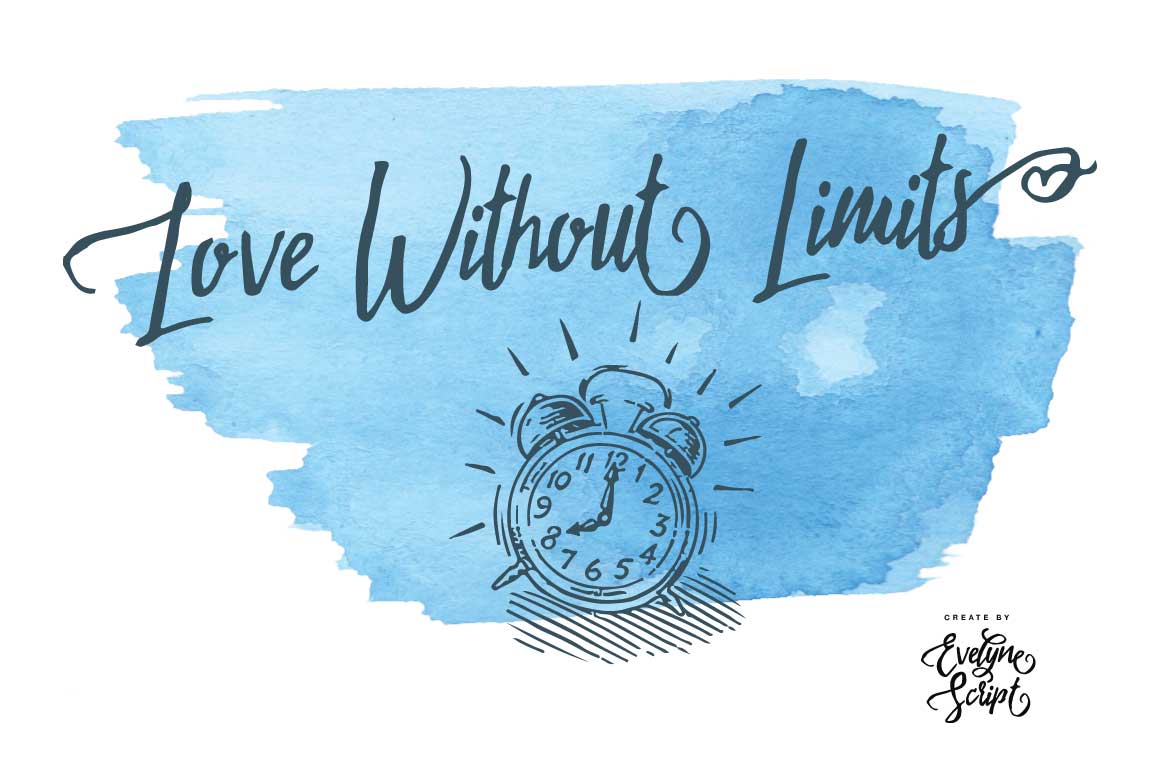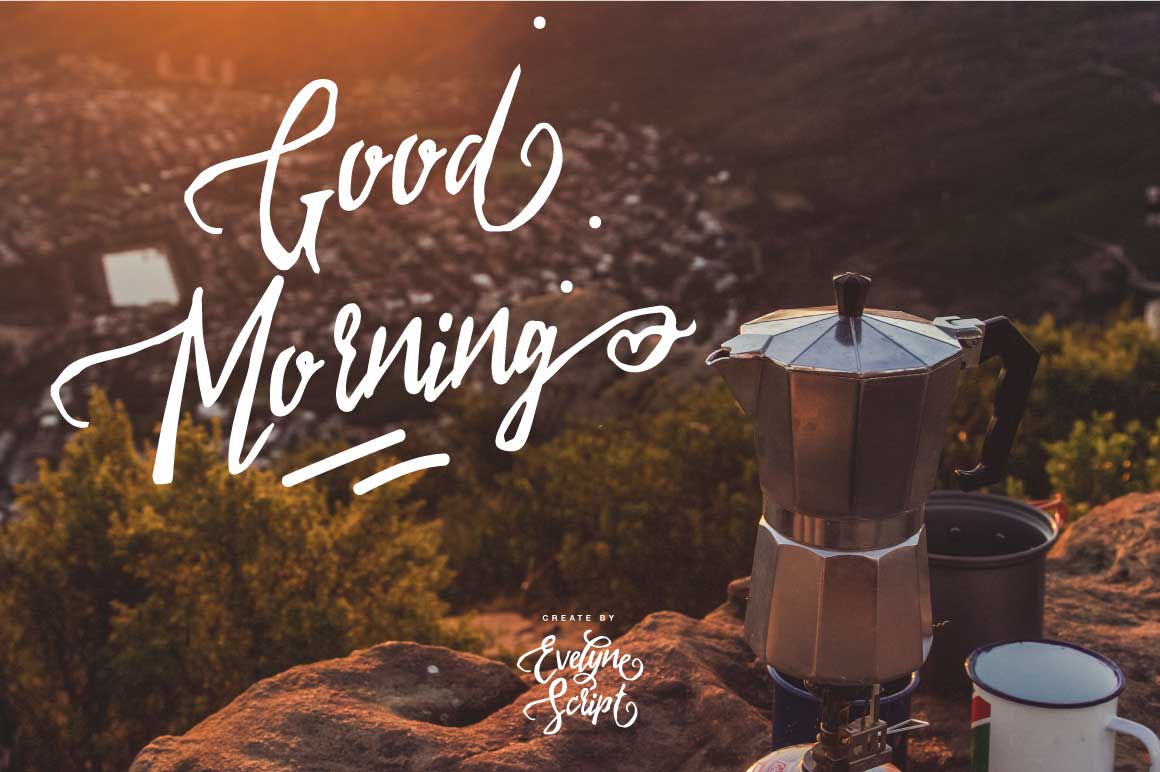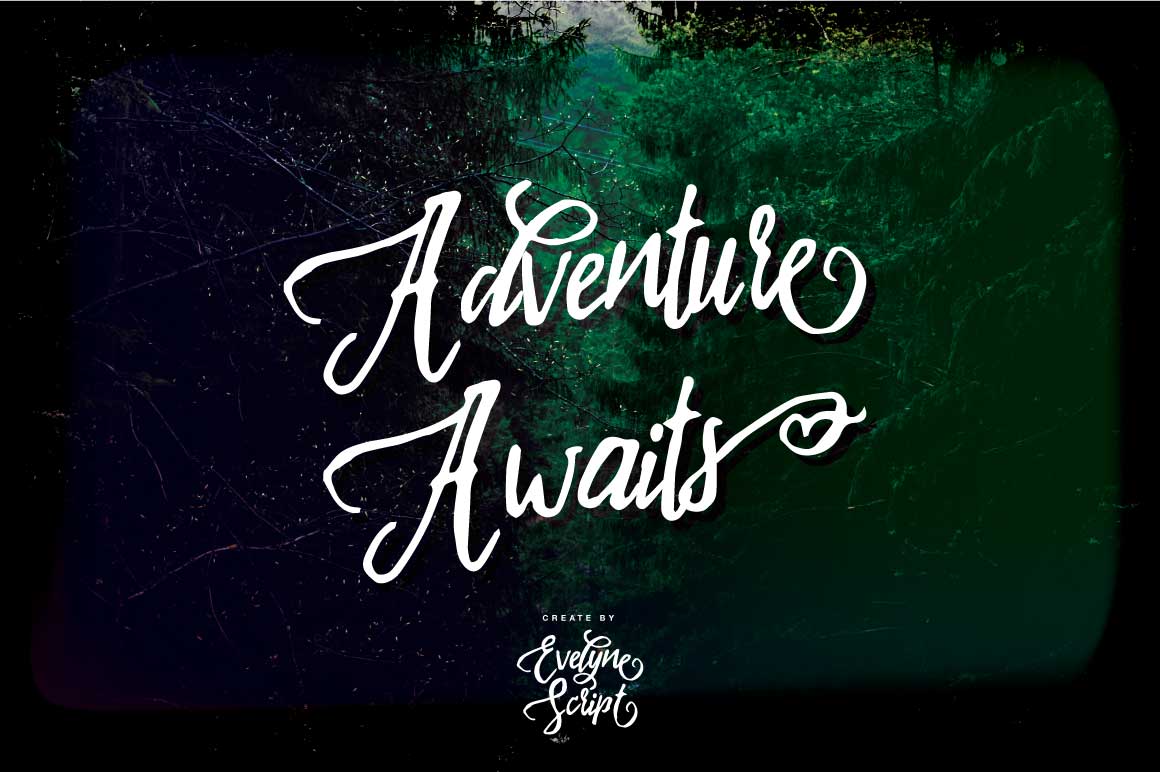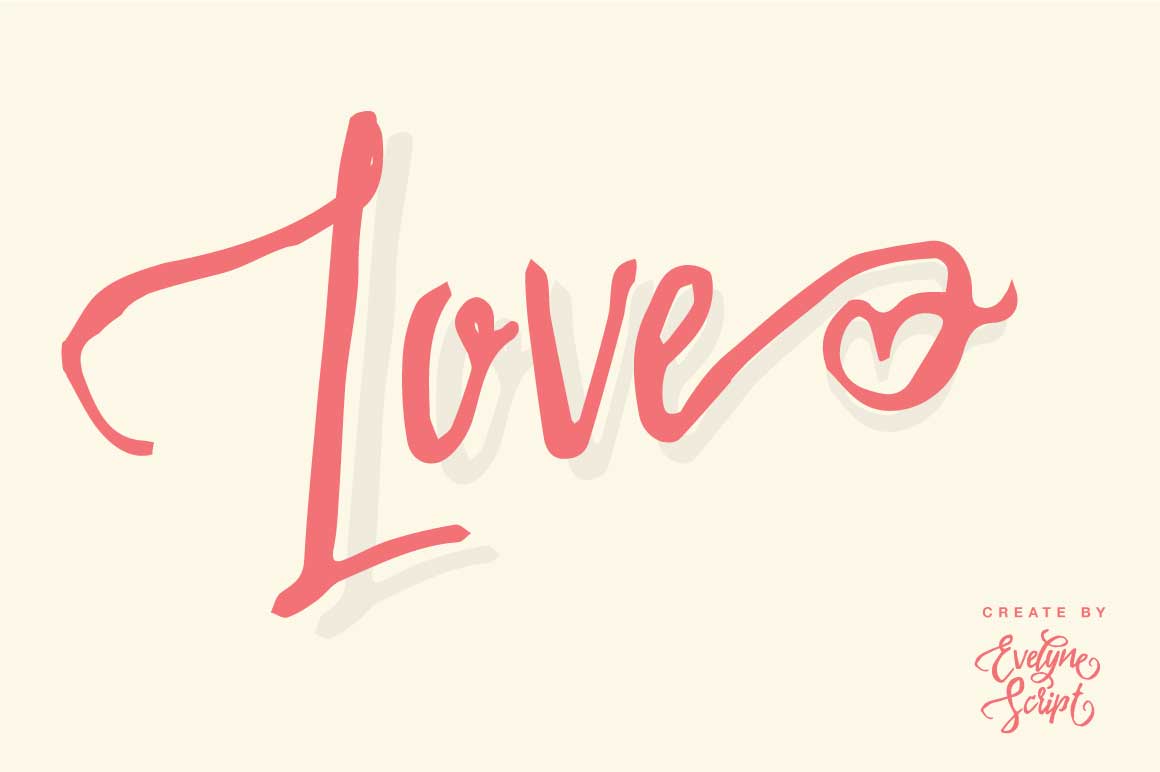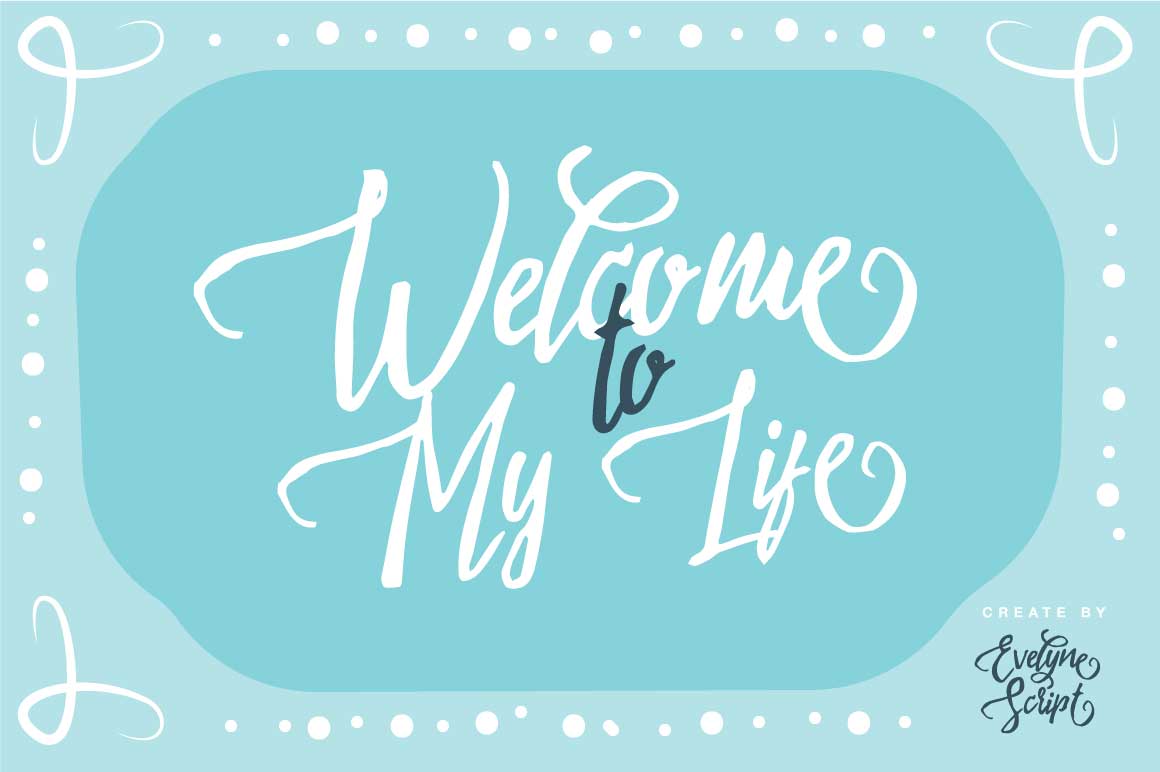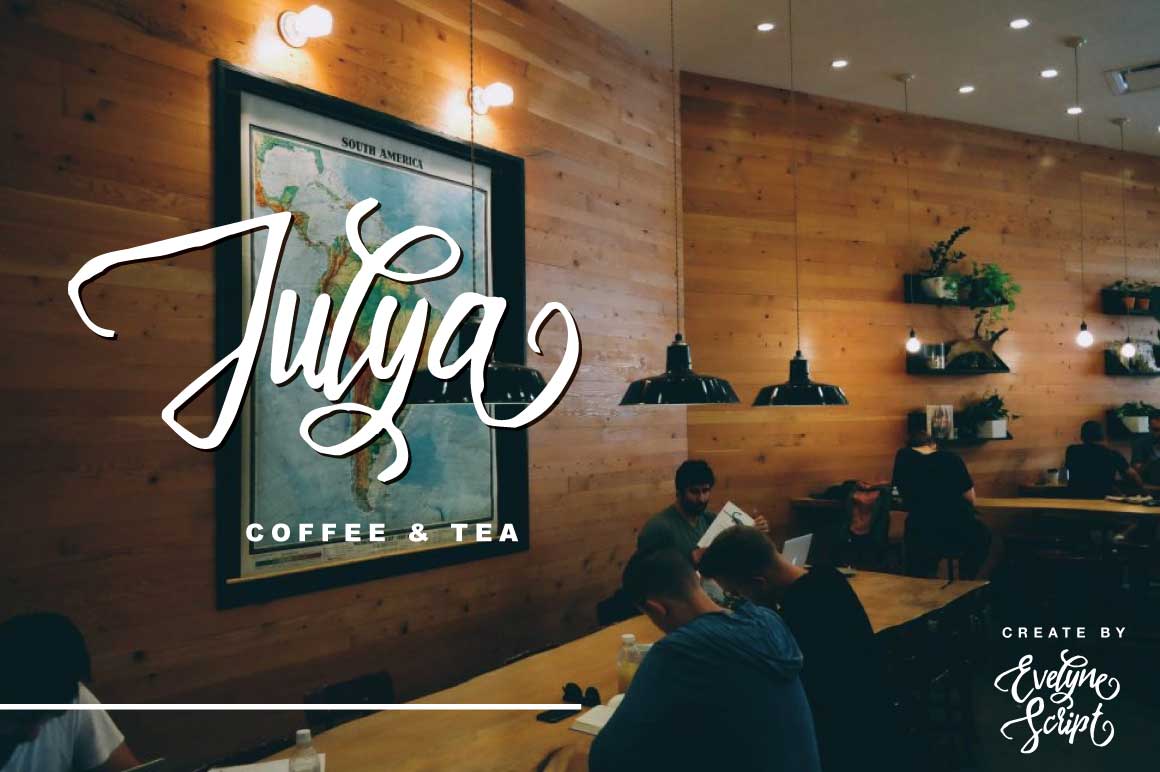
Evelyne Font: Elevate Your Designs with this Gorgeous Handwritten Script
Are you looking for a font that adds a touch of elegance and sophistication to your designs? Look no further than Evelyne Font, a stunning handwritten script typeface that is sure to impress. With its beautiful, flowing lines and stylistic alternates, Evelyne is the perfect choice for designers and crafters who want to add a personal touch to their work.
What Makes Evelyne Font So Special?
Evelyne Font is a gorgeous and well-weighted handwritten font that is designed to look great across a wide range of designs and styles. Its unique, cursive script style is perfect for adding a touch of elegance and sophistication to any project, from wedding invitations and branding materials to blog posts and social media graphics.
One of the standout features of Evelyne Font is its stylistic alternates. These alternates allow you to add variation and interest to your text, making it perfect for use in a wide range of design applications. Whether you’re creating a formal, elegant design or a more playful, whimsical one, Evelyne Font has the flexibility to adapt to your needs.
Key Features of Evelyne Font
- Handwritten script style: Evelyne Font has a beautiful, flowing script style that adds a touch of elegance and sophistication to any design.
- Stylistic alternates: With its stylistic alternates, Evelyne Font offers a range of variations that allow you to add interest and variation to your text.
- Well-weighted design: Evelyne Font is designed to be well-weighted, making it easy to read and beautiful to look at.
- Wide range of design applications: Evelyne Font is perfect for use in a wide range of design applications, from wedding invitations and branding materials to blog posts and social media graphics.
How to Use Evelyne Font in Your Designs
Evelyne Font is easy to use and can be incorporated into your designs in a variety of ways. Here are a few ideas to get you started:
- Wedding invitations and stationery: Evelyne Font is perfect for use in wedding invitations, thank you cards, and other stationery.
- Branding materials: Use Evelyne Font to add a touch of elegance and sophistication to your branding materials, such as business cards, brochures, and letterheads.
- Blog posts and social media graphics: Evelyne Font is a great choice for use in blog posts and social media graphics, adding a touch of personality and style to your online content.
- Signage and display graphics: Evelyne Font can also be used in signage and display graphics, such as menus, flyers, and posters.
Tips for Getting the Most Out of Evelyne Font
Here are a few tips for getting the most out of Evelyne Font:
- Experiment with different sizes and styles: Evelyne Font looks great in a variety of sizes and styles, so don’t be afraid to experiment and find the look that works best for your design.
- Use it with contrasting fonts: Evelyne Font pairs well with a range of fonts, so try using it with contrasting fonts to add interest and variety to your design.
- Take advantage of stylistic alternates: Don’t forget to take advantage of Evelyne Font’s stylistic alternates, which can add variation and interest to your text.
Evelyne Font is a gorgeous and well-weighted handwritten font that is sure to elevate your designs. With its beautiful, flowing lines and stylistic alternates, Evelyne is the perfect choice for designers and crafters who want to add a personal touch to their work. Whether you’re creating wedding invitations, branding materials, or blog posts, Evelyne Font is a great choice. So why not give it a try and see the difference it can make in your designs?